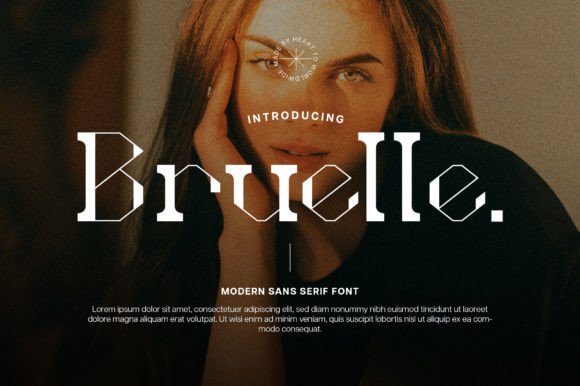
The Designer’s Delight: Bruelle Font
I’ll never forget the struggle I faced while working on a logo design project for a boutique brand. The client wanted something elegant, yet modern, and I was on a mission to find the perfect font. Hours of browsing through font libraries, and I stumbled upon Bruelle Font. It was love at first sight! ✨ With its modern serif design and lovely glyphic styles, I knew I had found the one. In this article, I’ll share my experience with Bruelle Font, its features, and how to make the most of it in your designs.
What I Love About Bruelle Font
Bruelle Font has quickly become a staple in my design toolkit, and here’s why:
• ✨ Modern serif design: Bruelle Font boasts a sleek, contemporary look that’s perfect for logos, branding, and packaging.
• ✅ Glyphic styles: The font comes with a range of glyphs and swashes, making it easy to add a personal touch to your designs.
• 💡 PUA encoded: With PUA encoding, accessing glyphs and swashes is a breeze, giving you more creative freedom.
• 🎨 Versatile: Use Bruelle Font for logos, labels, packaging, stickers, and more – the possibilities are endless!
While Bruelle Font is an excellent choice, there are a few things to keep in mind:
• 🤔 Limited language support: Bruelle Font might not support all languages, so be sure to check the character set before using it for a project.
• ⚠️ Glyph compatibility: Some glyphs might not work seamlessly with all design software or platforms.
Bruelle Font was crafted with love by a team of designers who aimed to create a versatile, modern serif font. Their inspiration came from classic typography, combined with a passion for contemporary design. The result is a font that’s both elegant and approachable.
What is PUA encoding? PUA (Private Use Area) encoding allows for easy access to glyphs and swashes, making it simpler to use special characters in your designs.
Is Bruelle Font suitable for body text? While Bruelle Font is beautiful, it’s primarily designed for headlines and titles. For body text, consider a font with better readability.
Bruelle Font has become a valuable addition to my design collection, and I hope it will be for you too. With its elegant design, versatility, and ease of use, it’s perfect for a wide range of projects. Happy designing! 🎉